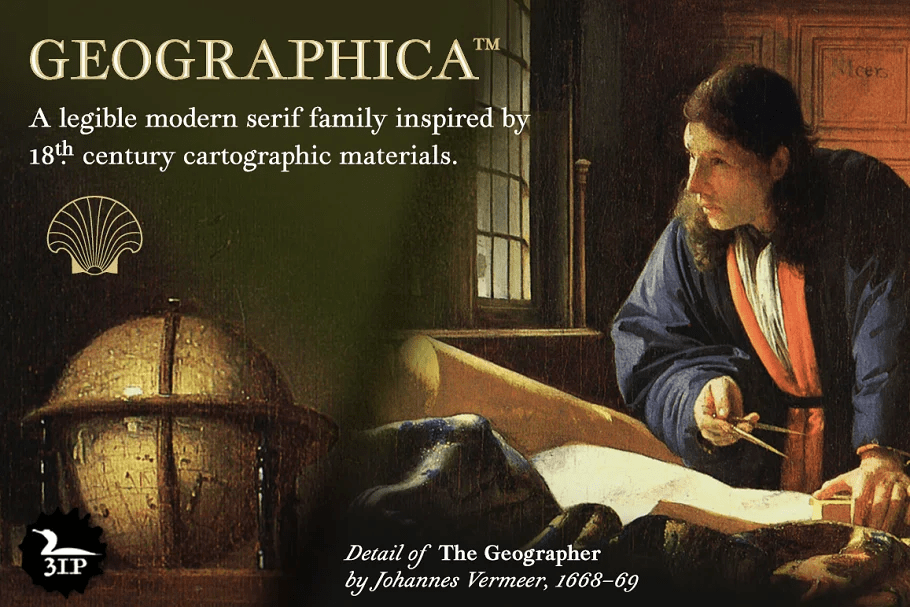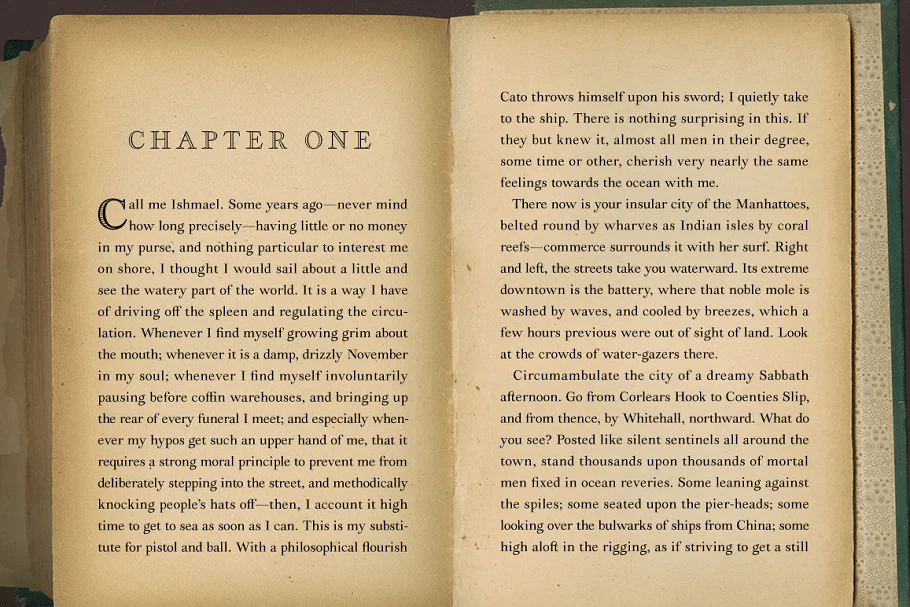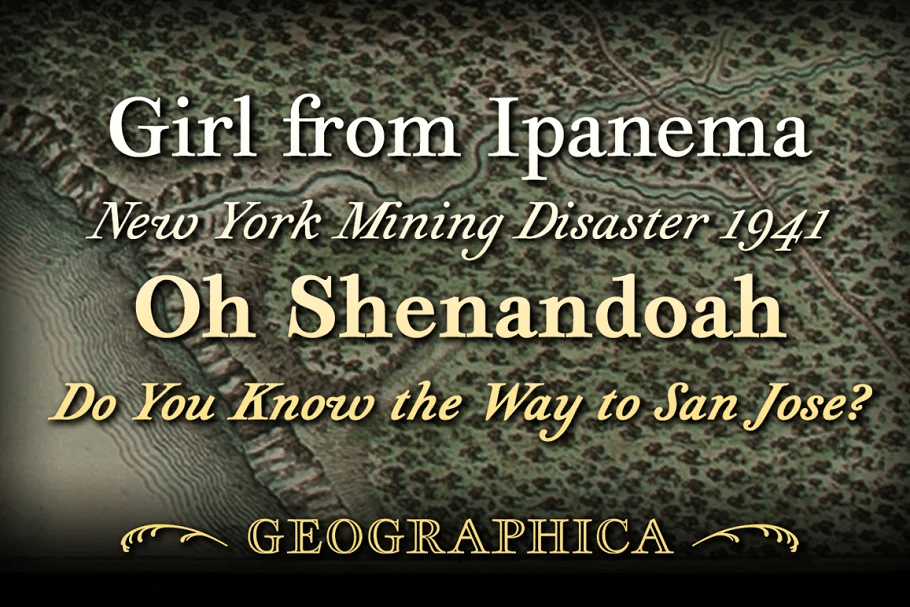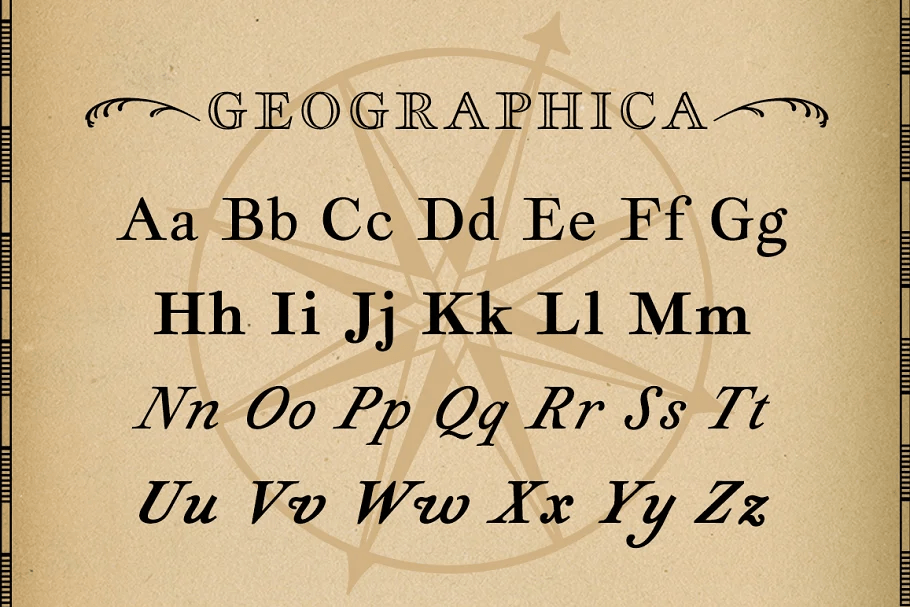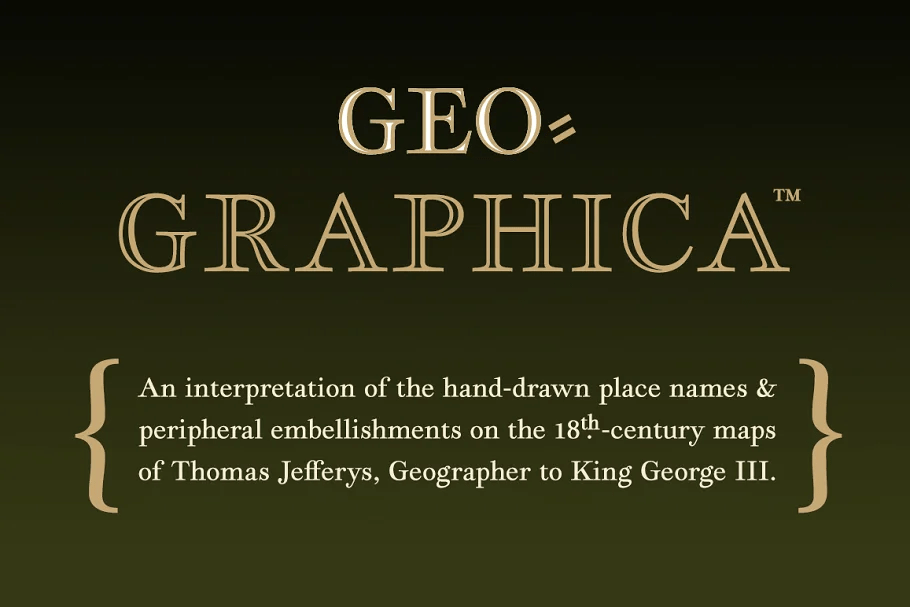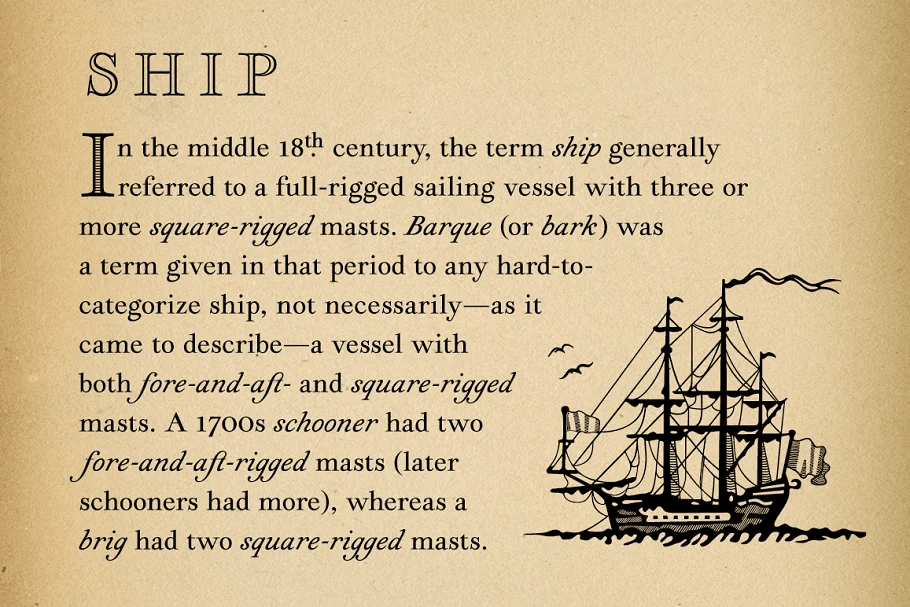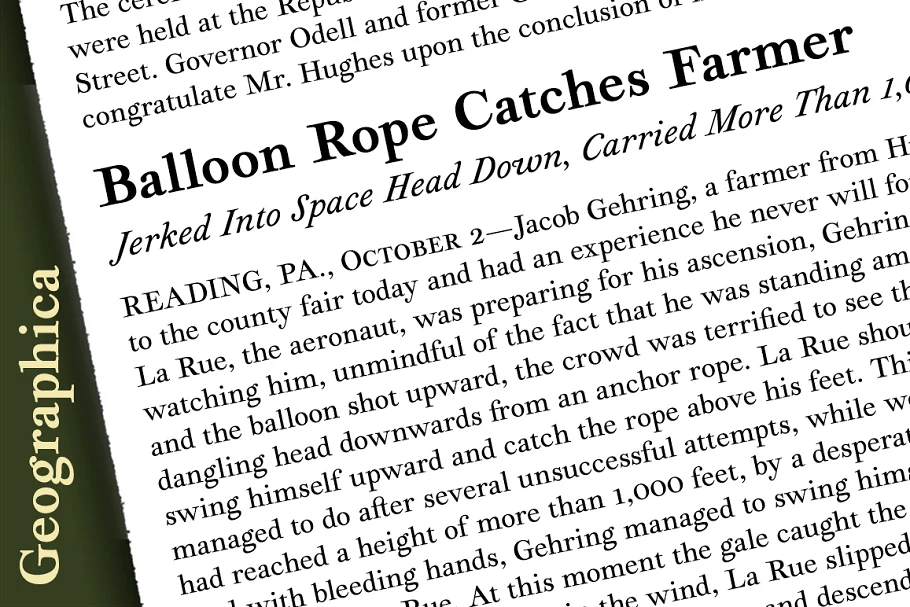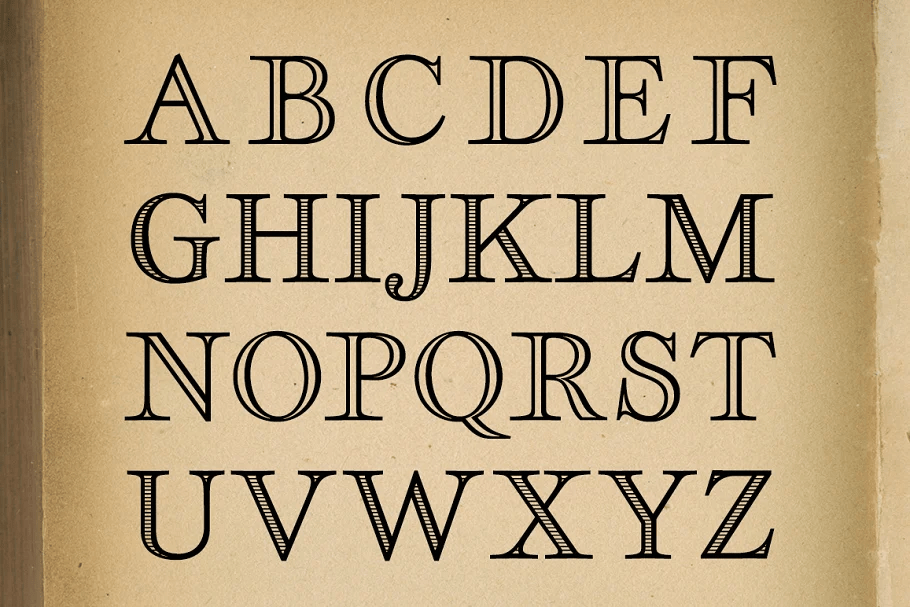
Geographica
Font Family by Three Islands Press
Geographica is a legible, four-style serif family modeled after the neat hand-lettered place names and peripheral text on the 18th century maps of Thomas Jefferys (ca. 1710-1771), Geographer to King George III. With its long serifs, tall x-height, and robust curves, Geographica combines classic elegance with a whiff of coastline and sea. The italic styles have the slant and warmth of the hand-drawn source materials. And the typeface comes with a slew of distinctive cartographic ornaments -- including compass wheels and sailing ships. This evocative serif works well in both display situations and long blocks of text, whether on paper or screen. OpenType features include small capitals, numerous ligatures, and two stylistic sets of titling caps. Geographica offers full support for Central and Eastern European languages -- more than 1,200 glyphs in all.